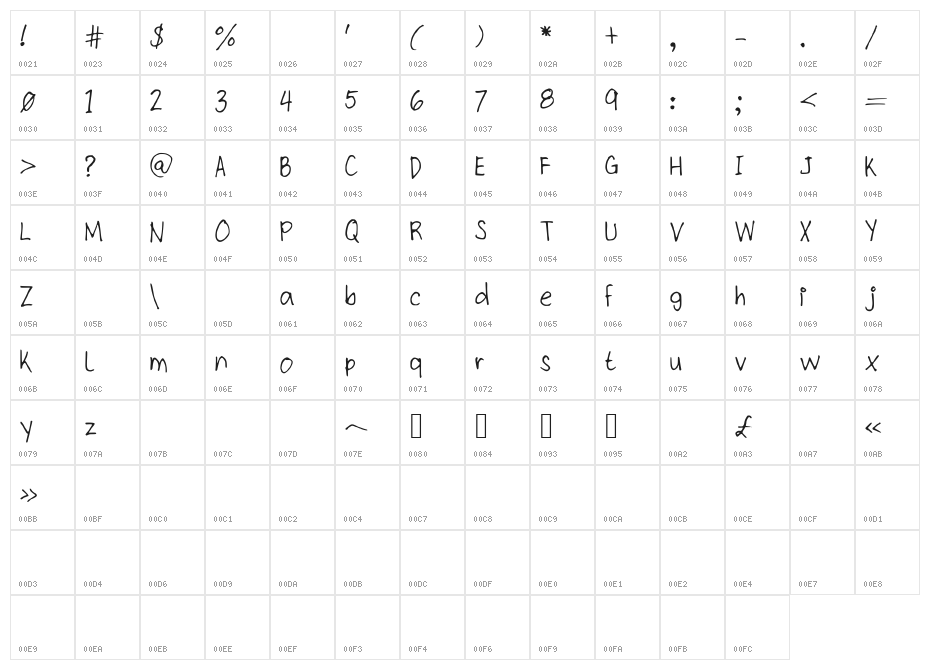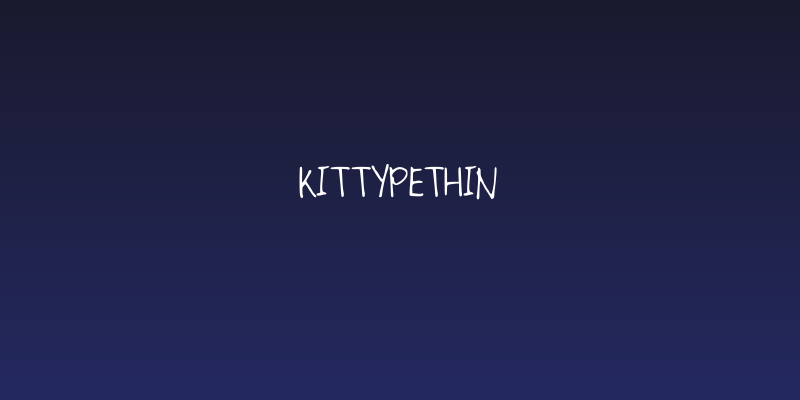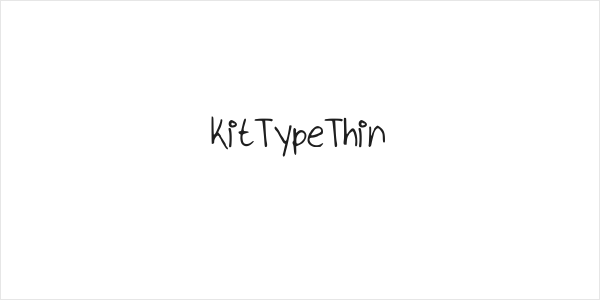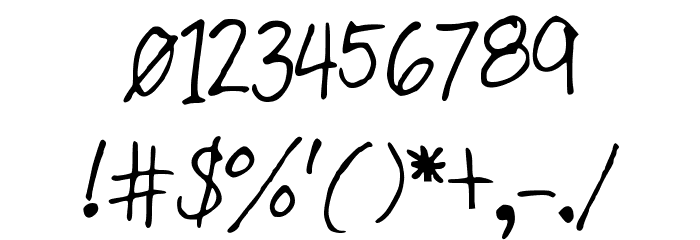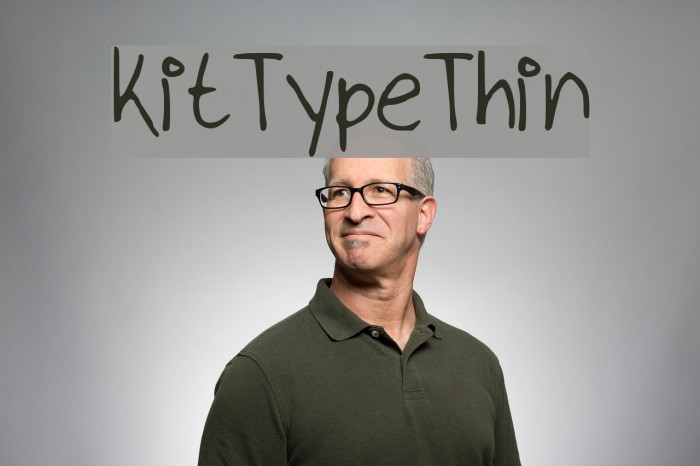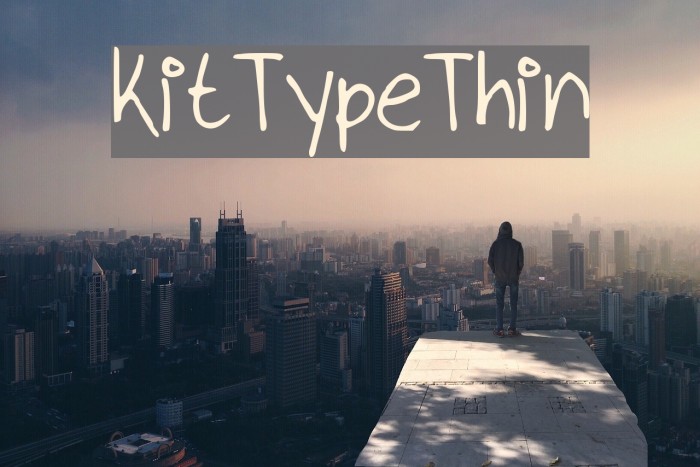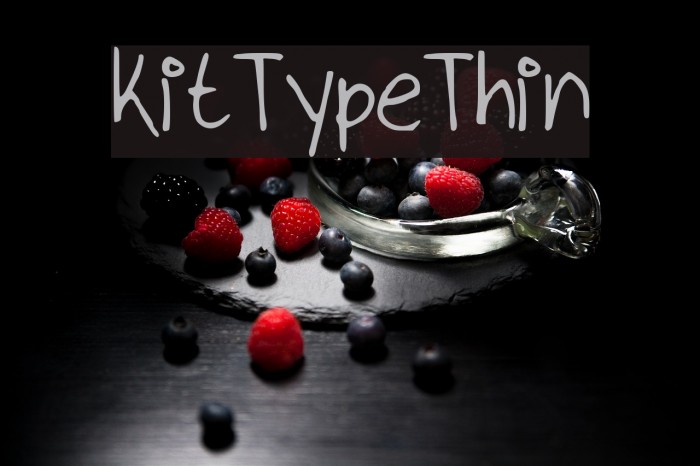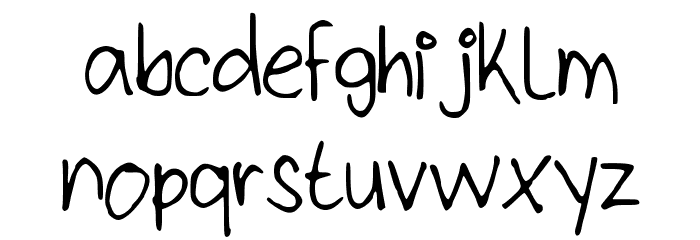
kitTypeThin Font
kitTypeThin Description
This font features a playful and casual handwritten style, characterized by its irregular and organic letterforms. The strokes are thin and slightly uneven, giving it a natural, informal appearance. The uppercase and lowercase letters maintain a consistent style, with rounded edges and a slight slant, enhancing its approachable and friendly feel. The numerals and special characters follow the same design principles, ensuring a cohesive look across all glyphs. This font's charm lies in its simplicity and the subtle variations in stroke width, which add a touch of personality without compromising readability.
| Use Case | Headlines, Informal text, Personal projects |
| Proposed Projects | Ideal for personal projects, greeting cards, children's books, and informal branding. |